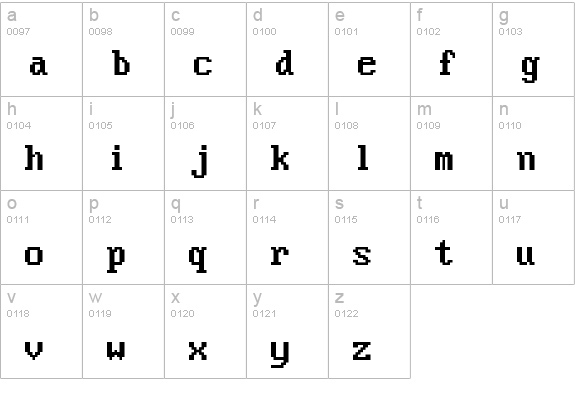
The Video Terminal Screen font is the perfect choice for all your digital and retro-inspired designs. With its sleek and futuristic appearance, this font brings a touch of modernity to any project. Designed specifically for video terminals, this font is perfect for displaying information in a clear and concise manner. Featuring clean lines and sharp edges, the Video Terminal Screen font captures the essence of technology and digital communication. Whether you're designing a website, creating a digital interface, or working on a video game, this font will add a professional and polished look to your project. But what sets the Video Terminal Screen font apart is that it is not only visually stunning but also freely available to download at FontsMarket.com. This means that you can use this font in your personal and commercial projects without worrying about any licensing restrictions. It's the perfect solution for designers who want to add a touch of modernity to their work without breaking the bank. So why wait? Download the Video Terminal Screen font today from FontsMarket.com and start incorporating its sleek and futuristic style into your designs. Whether you're a professional designer or a hobbyist, this font will elevate your work to new heights. Don't miss out on this opportunity to enhance your projects with a font that is both visually appealing and freely available to download.